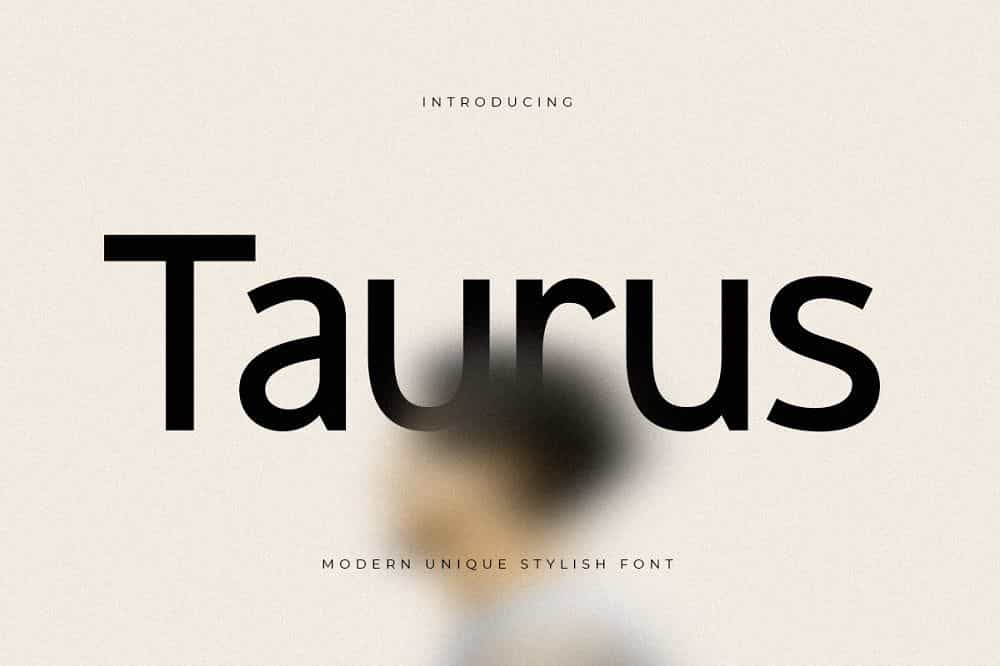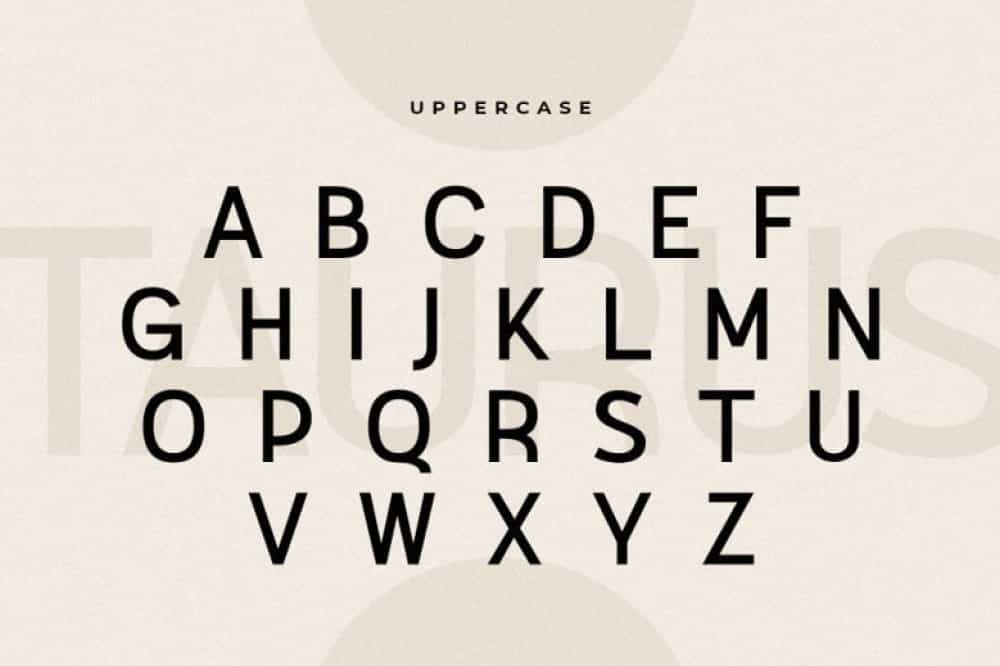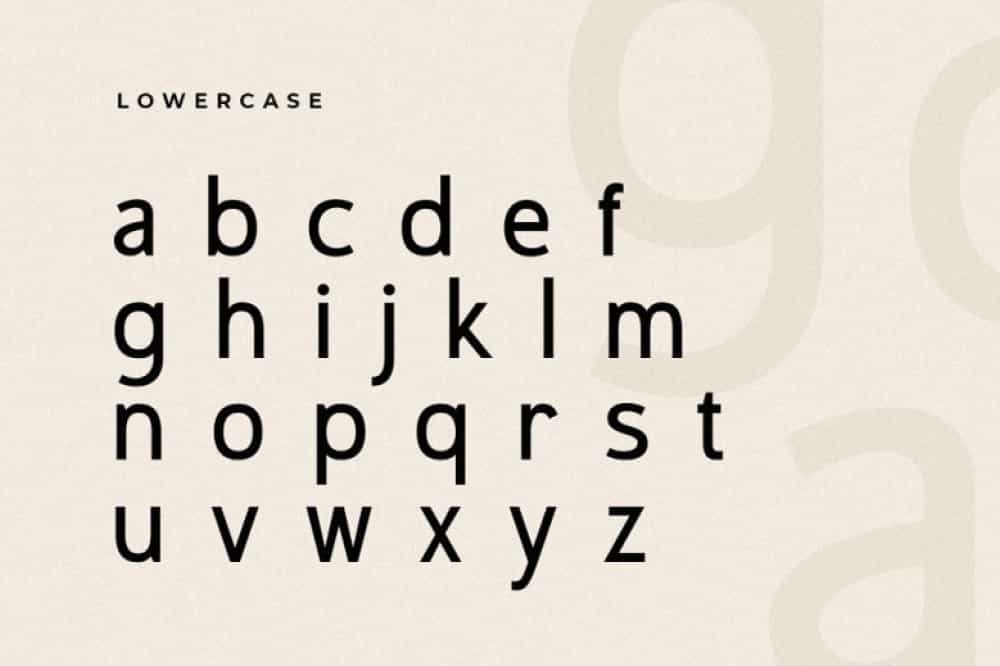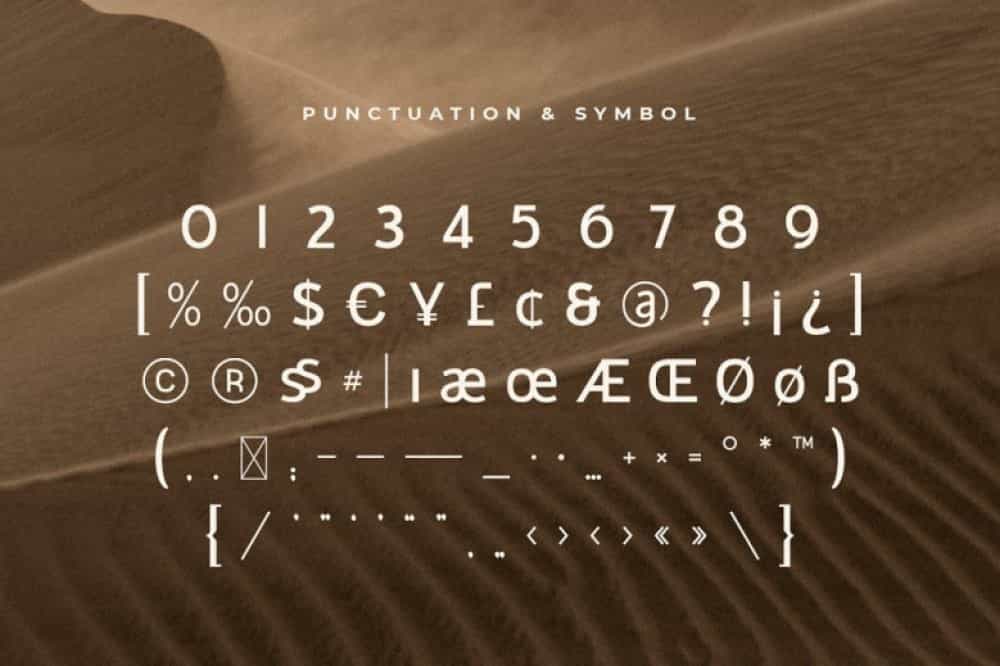
Taurus is a classical, very simple sans serif font, designed in random and free manner. This is advantageous for the designer or product owner that requires solutions on how to enhance the look of their design to be more stylish and elegant. For this font, We design many ligatures characters So that you can make your own unlimited styles for your project.